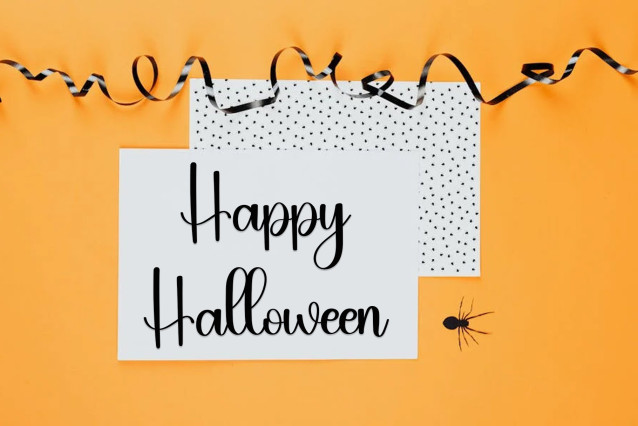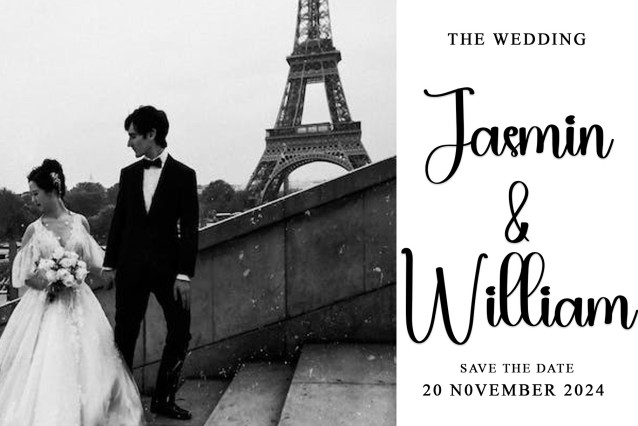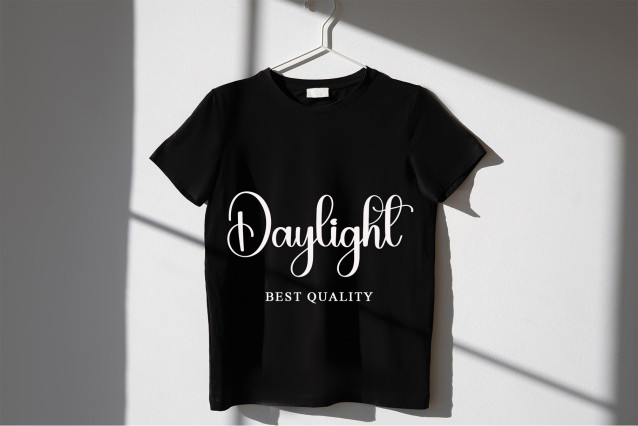
Retro Spring Script Font
Retro Spring Script Font is a fun handwritten font carefully created with a touch of elegance. Whether you’re looking for fonts for Instagram or calligraphy scripts for DIY projects, this font will turn any creative idea into a true piece of art!